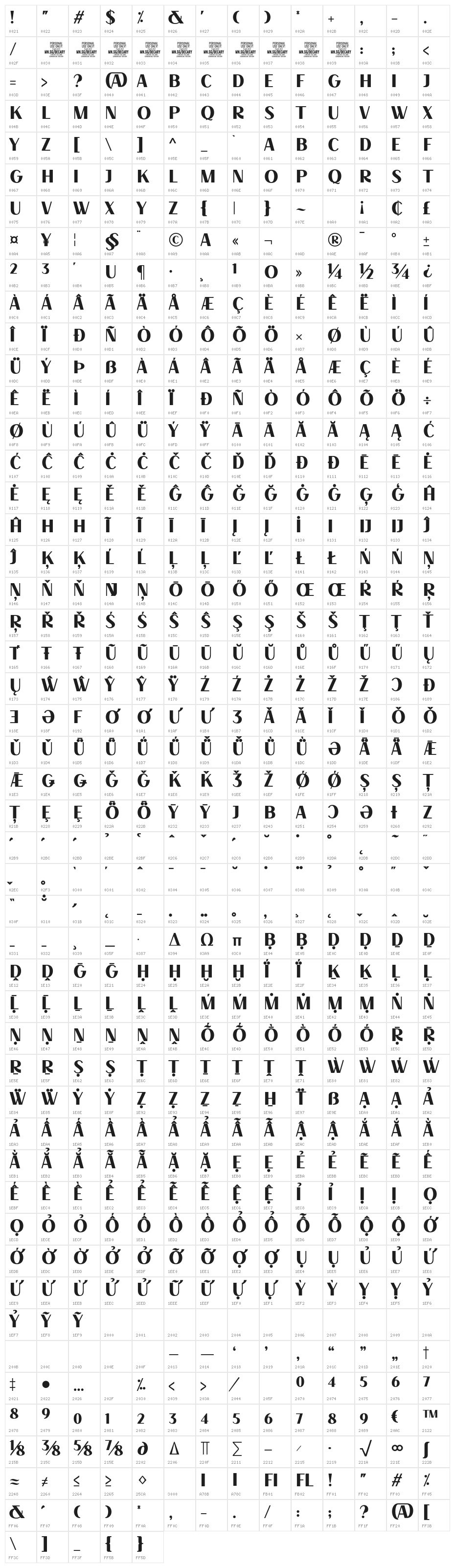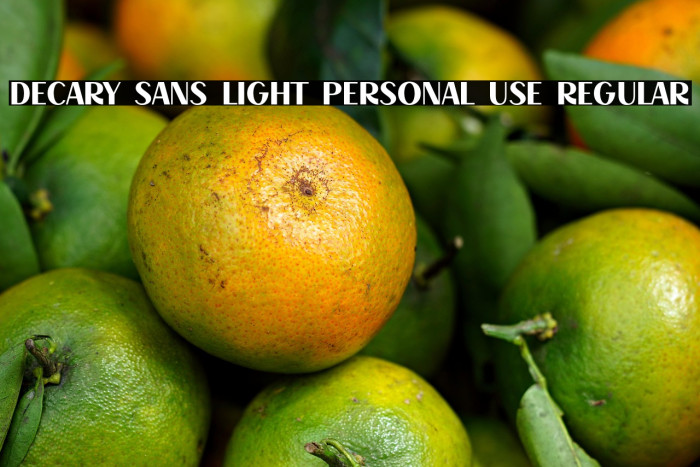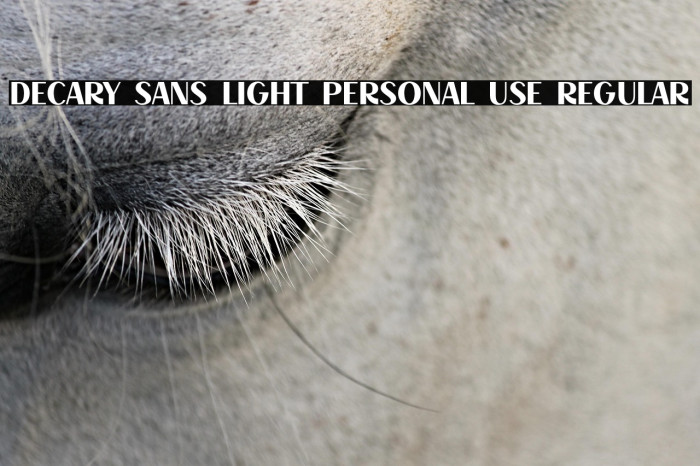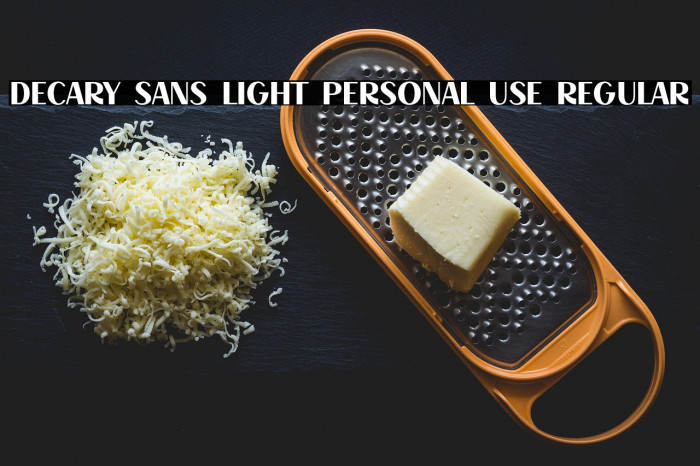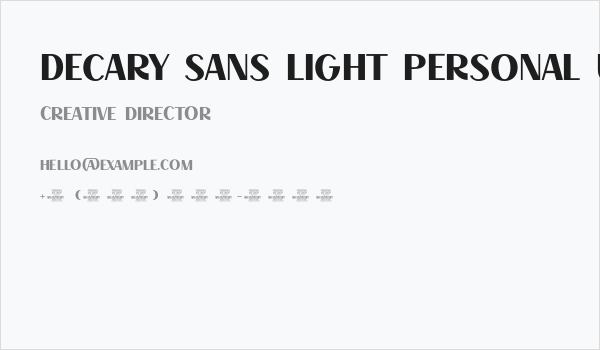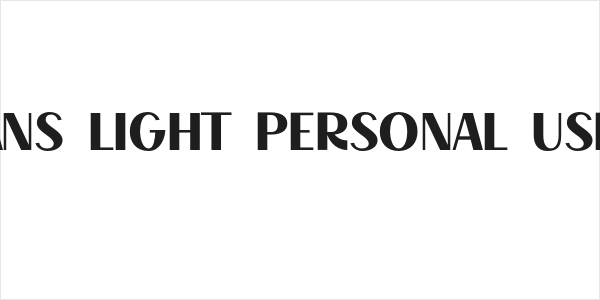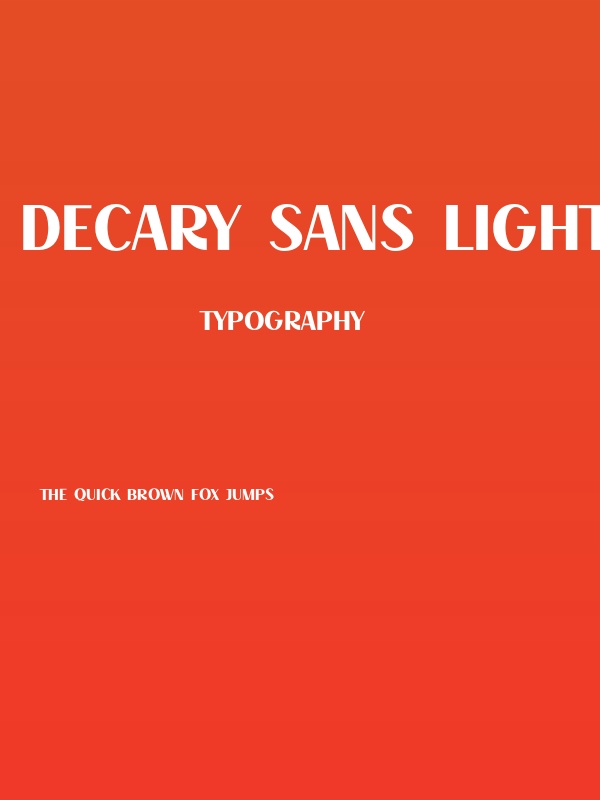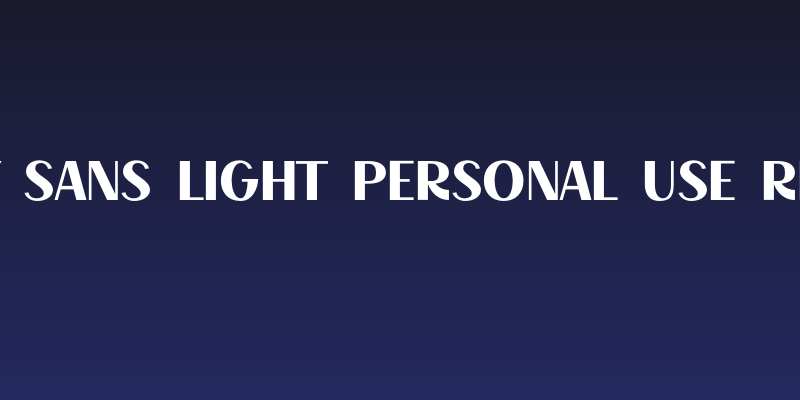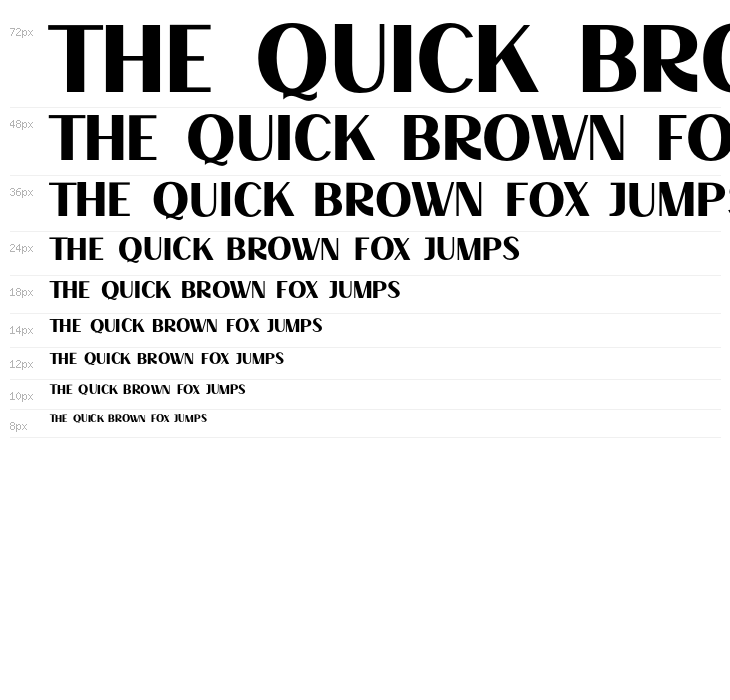
Decary Sans Light PERSONAL USE Regular Font
Decary Sans Light PERSONAL USE Regular Description
This font features a bold and striking design with a modern flair. The characters are crafted with a high contrast between thick and thin strokes, giving it a dynamic and eye-catching appearance. The uppercase letters are particularly prominent, with a slight curvature that adds a touch of elegance. The lowercase letters maintain a consistent style, complementing the uppercase set. The numerals are clear and bold, ensuring readability. Special characters are included, maintaining the same bold aesthetic. Overall, this font is designed to make a statement, suitable for various creative applications.